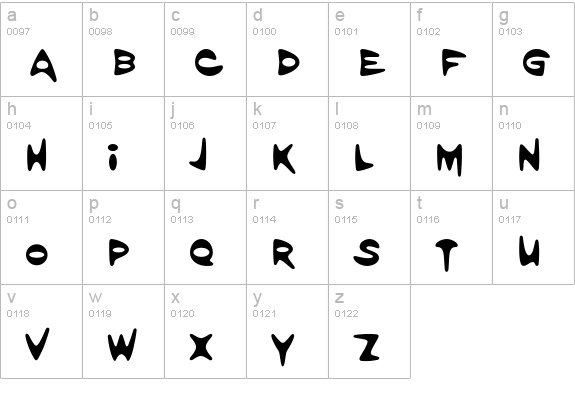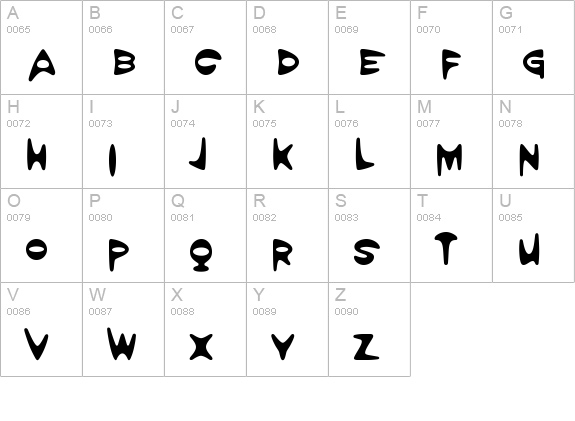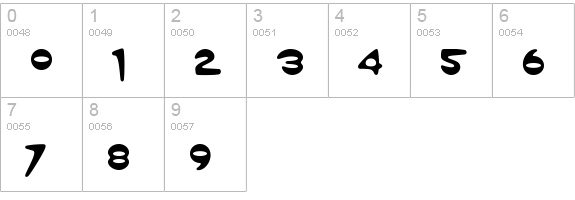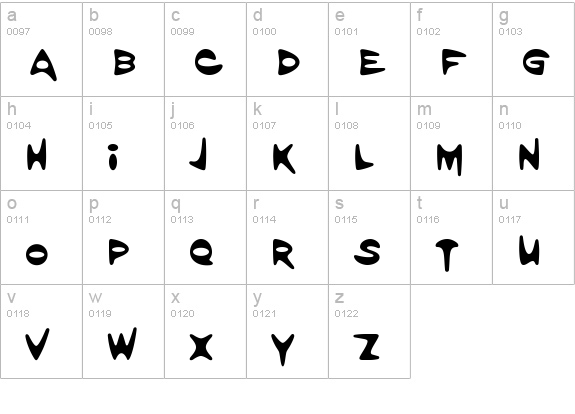
Amorpheus-Alternates Font Details
Amorpheus-Alternates is a stunning and versatile font that exudes a sense of modernity and elegance. With its unique and intricate design, this font is perfect for adding a touch of sophistication to any project. The alternate characters offer a variety of options for creating truly customized and eye-catching designs. Best of all, the Amorpheus-Alternates font is completely free to download at FontsMarket.com. Whether you are a designer looking to elevate your creations or a creative individual seeking a fresh and captivating font for personal use, this font is sure to impress. Download it today and let your creativity soar with Amorpheus-Alternates!